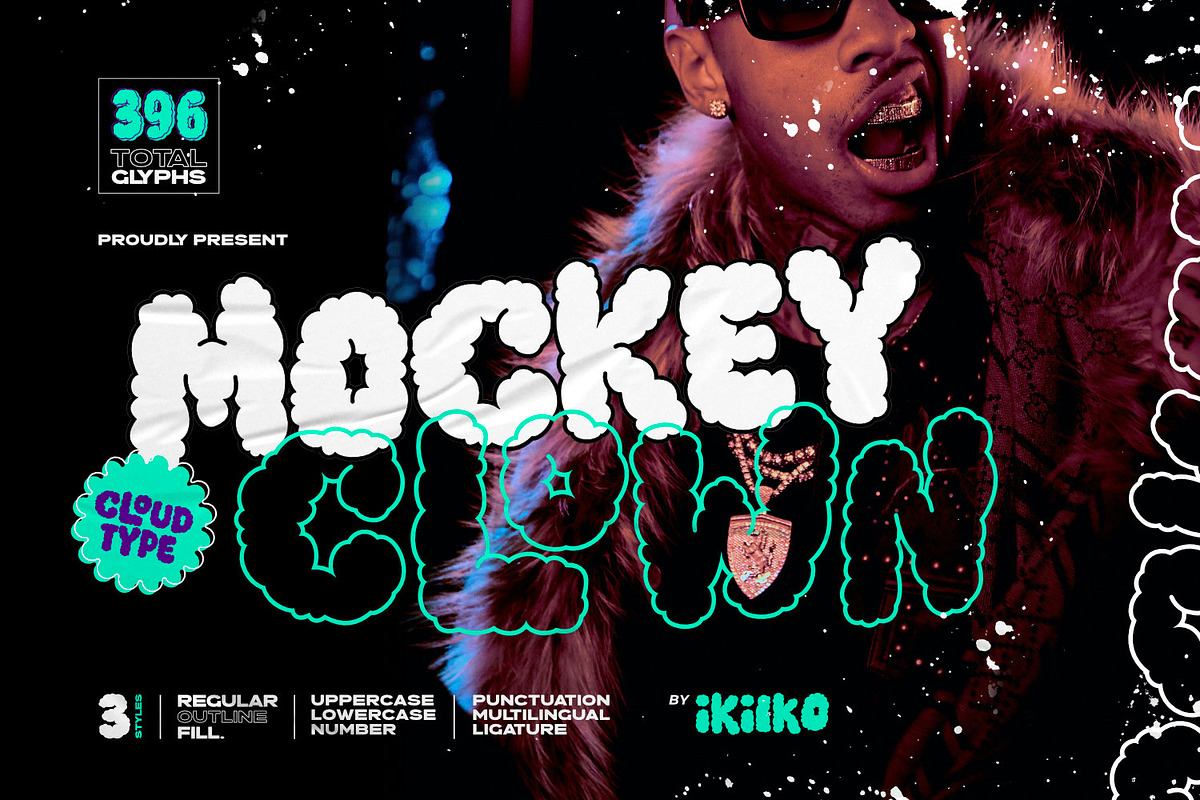
Mockey Clown Cloud Type Font Free Download is a whimsical and imaginative typeface that adds a playful, fluffy charm to your creative projects. With its rounded, cloud-like letterforms and lighthearted feel, this font is perfect for children’s designs, party invitations, logos, greeting cards, and any project that needs a cheerful, bubbly touch.
Download Mockey Clown Cloud Type Font Free Download today to explore its delightful style in personal projects before obtaining a commercial license. The font includes uppercase and lowercase characters, numerals, punctuation, and multilingual support—providing flexibility for a variety of design applications.
Whether you’re crafting a fun brand identity, designing a cheerful poster, or adding a playful element to your typography, Mockey Clown brings joy and creativity to any design. It’s the ideal font for designers who love lighthearted, imaginative typefaces.